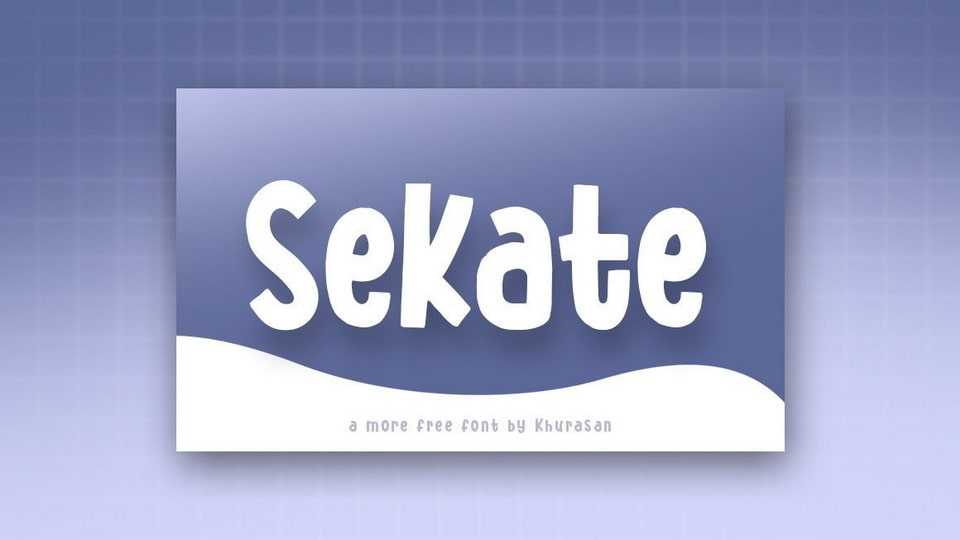
Download Sekate font, a quirky and playful handwritten typeface. With its friendly look Sekate font is perfect for posters, logos, magazines, book covers, banners, and many more.